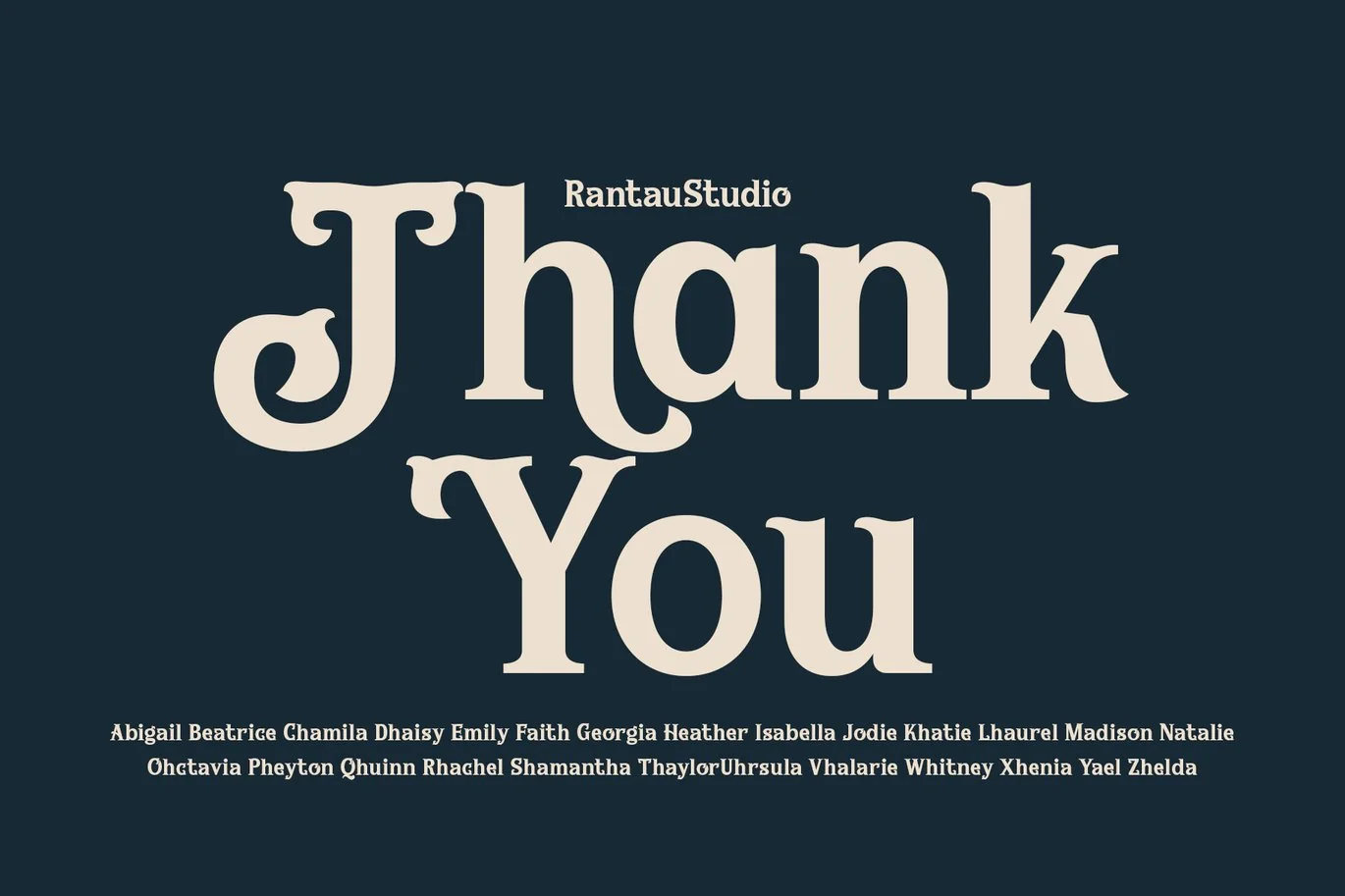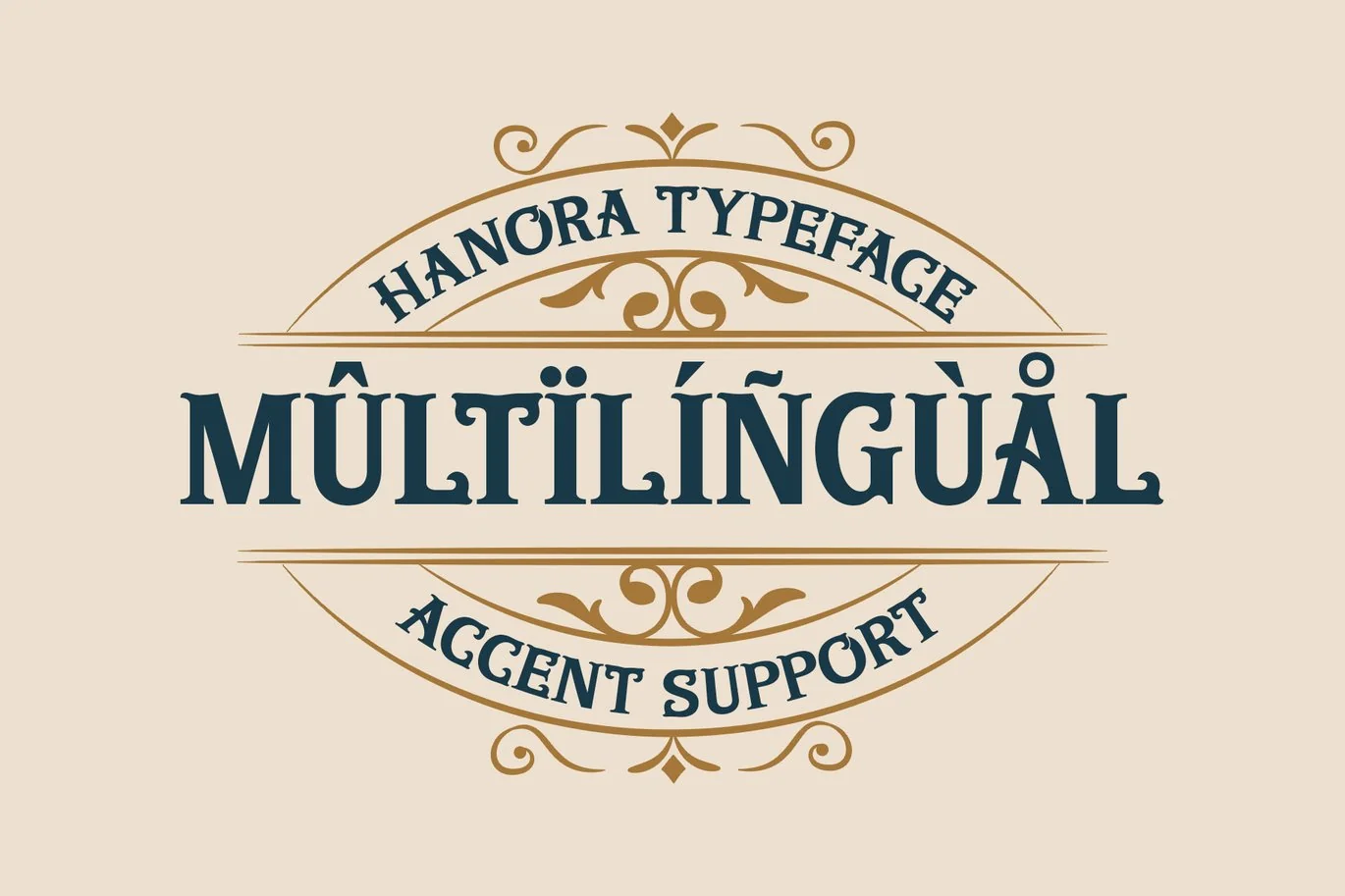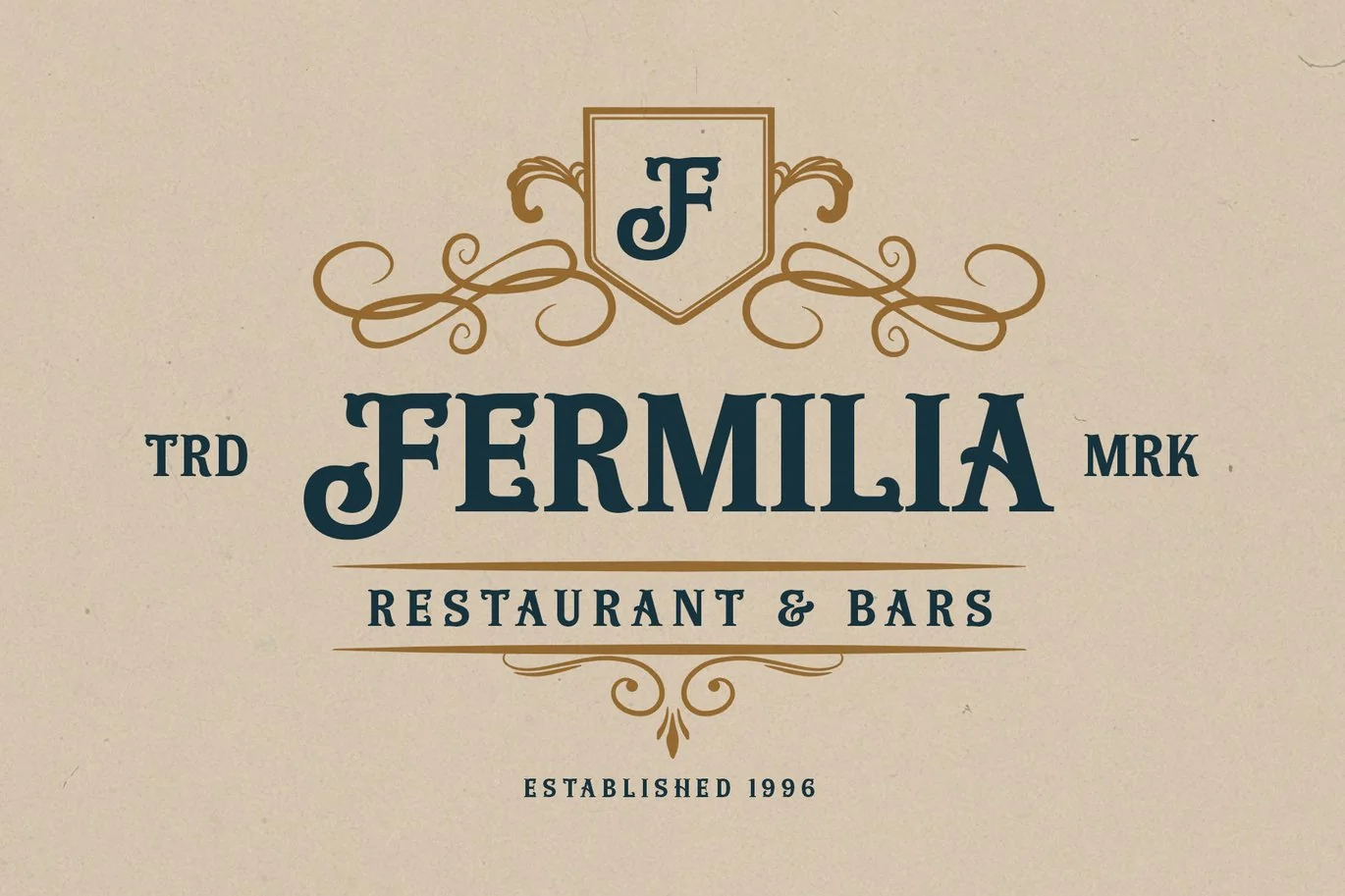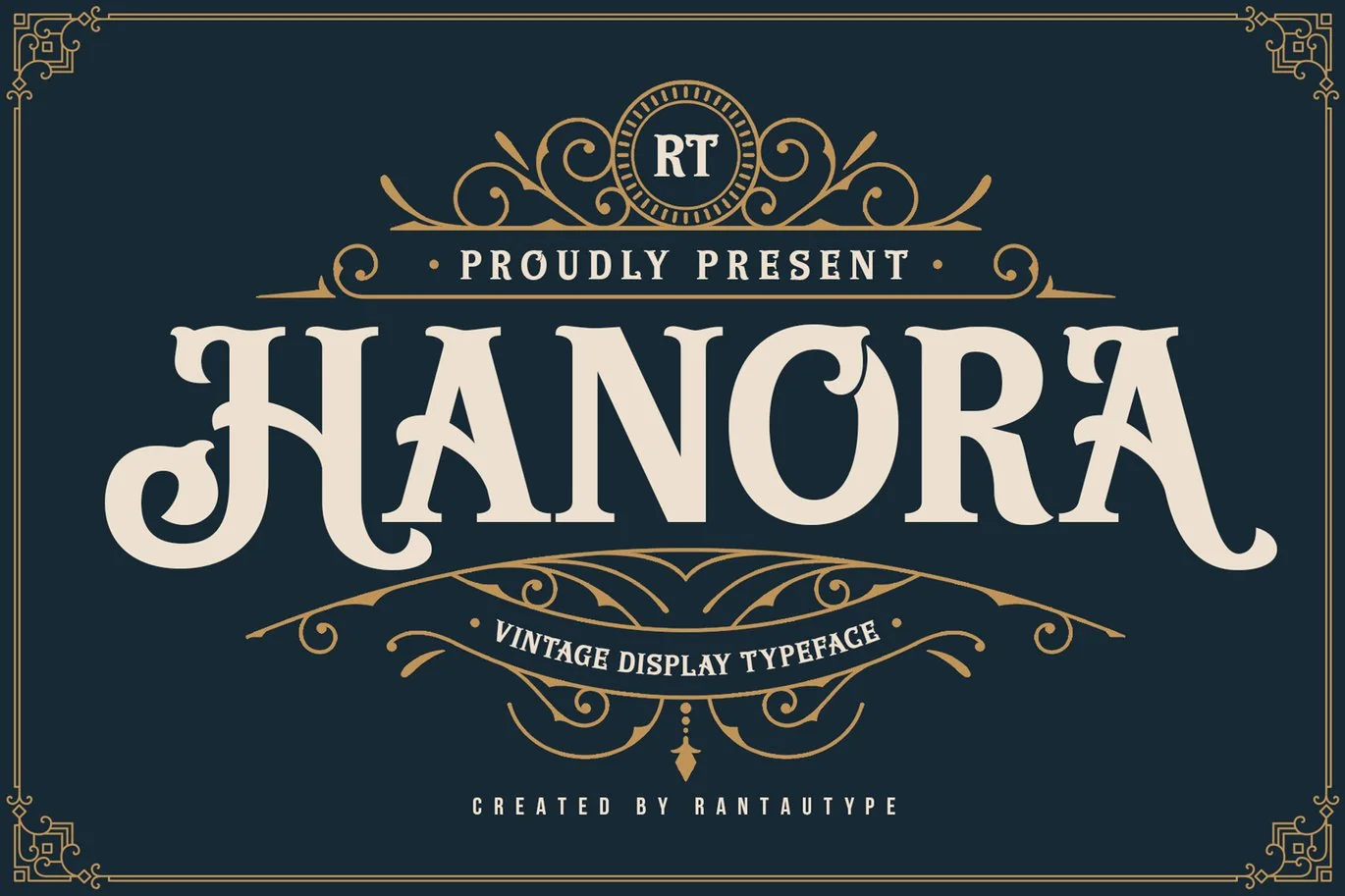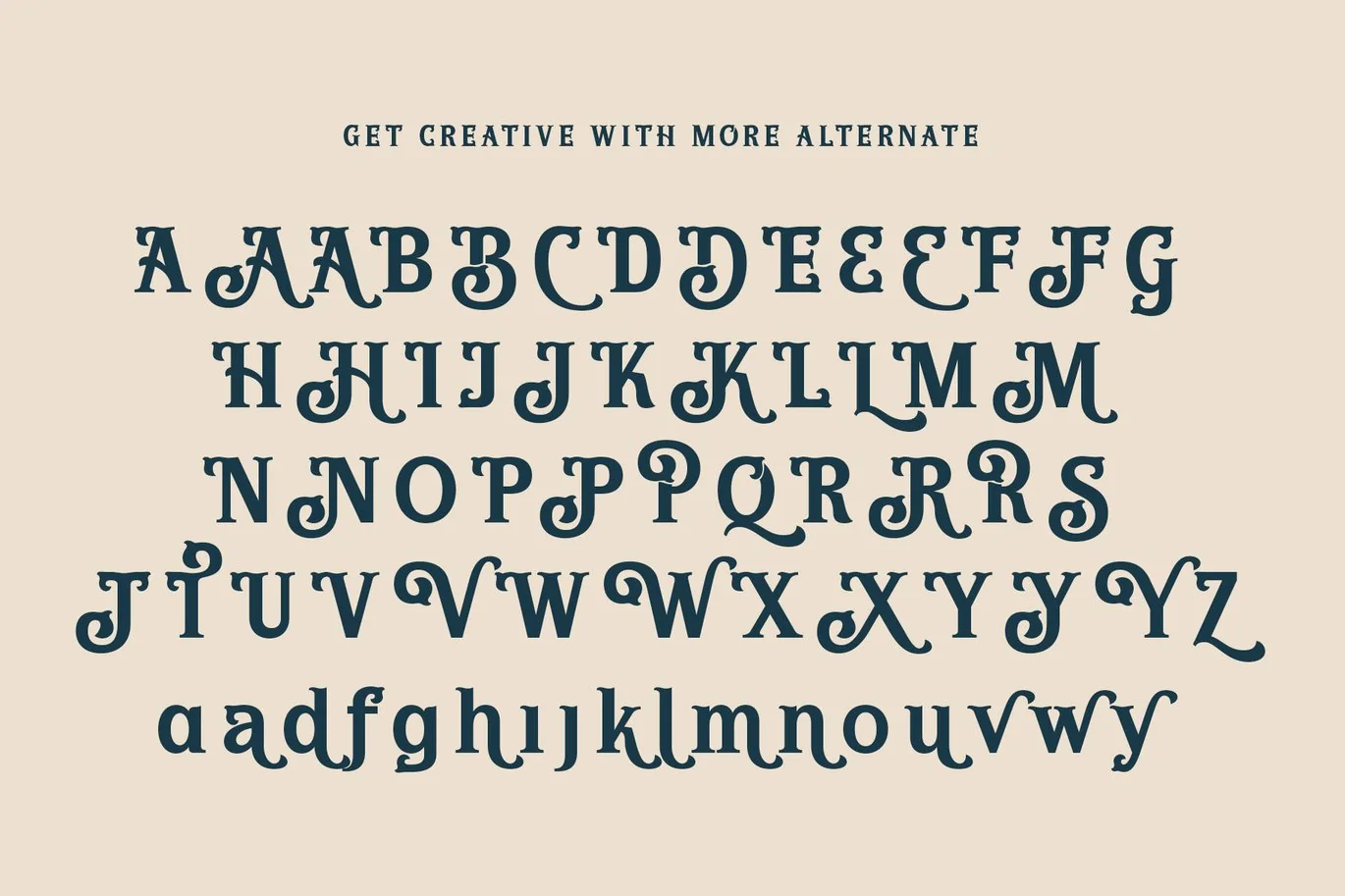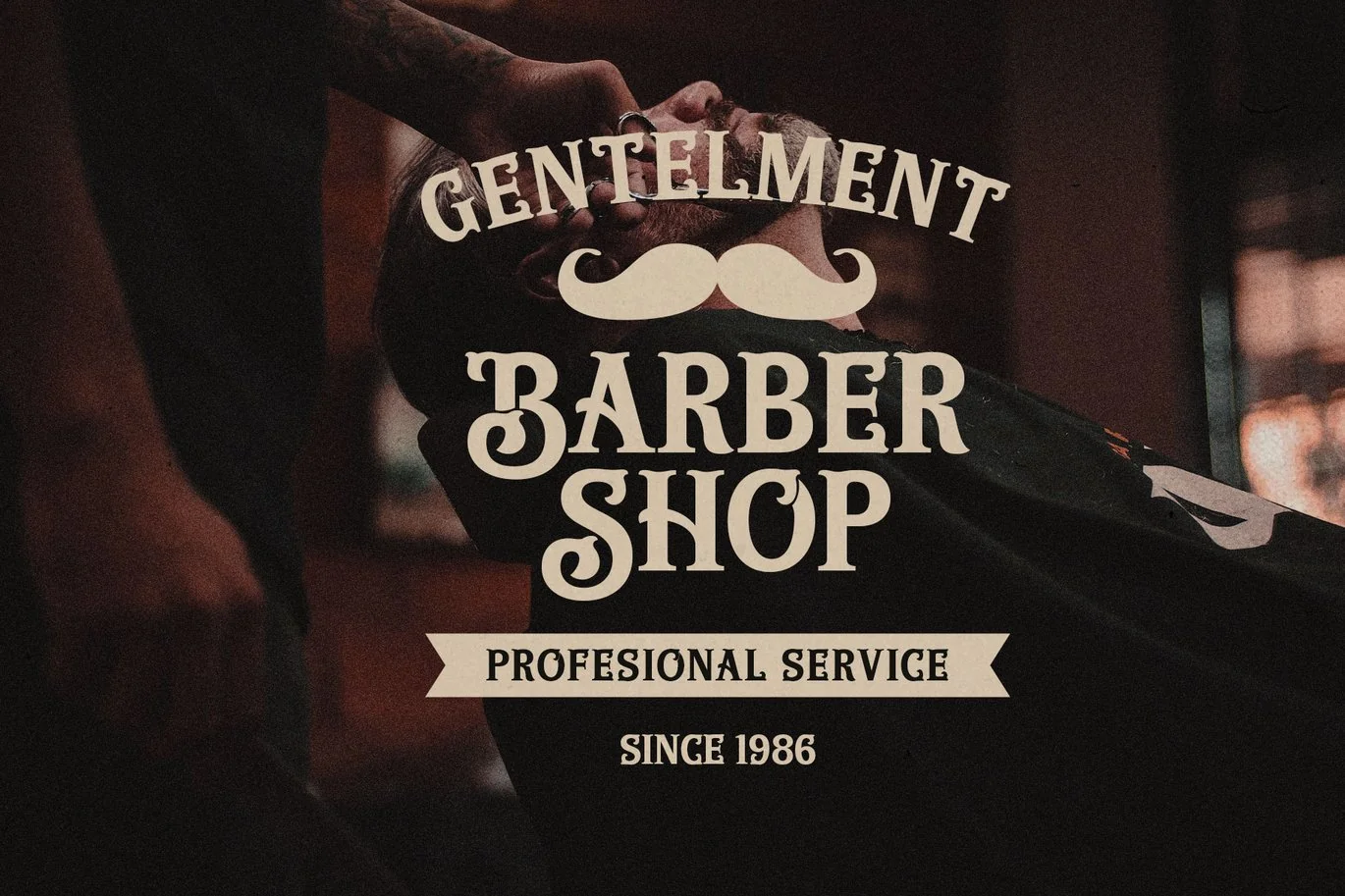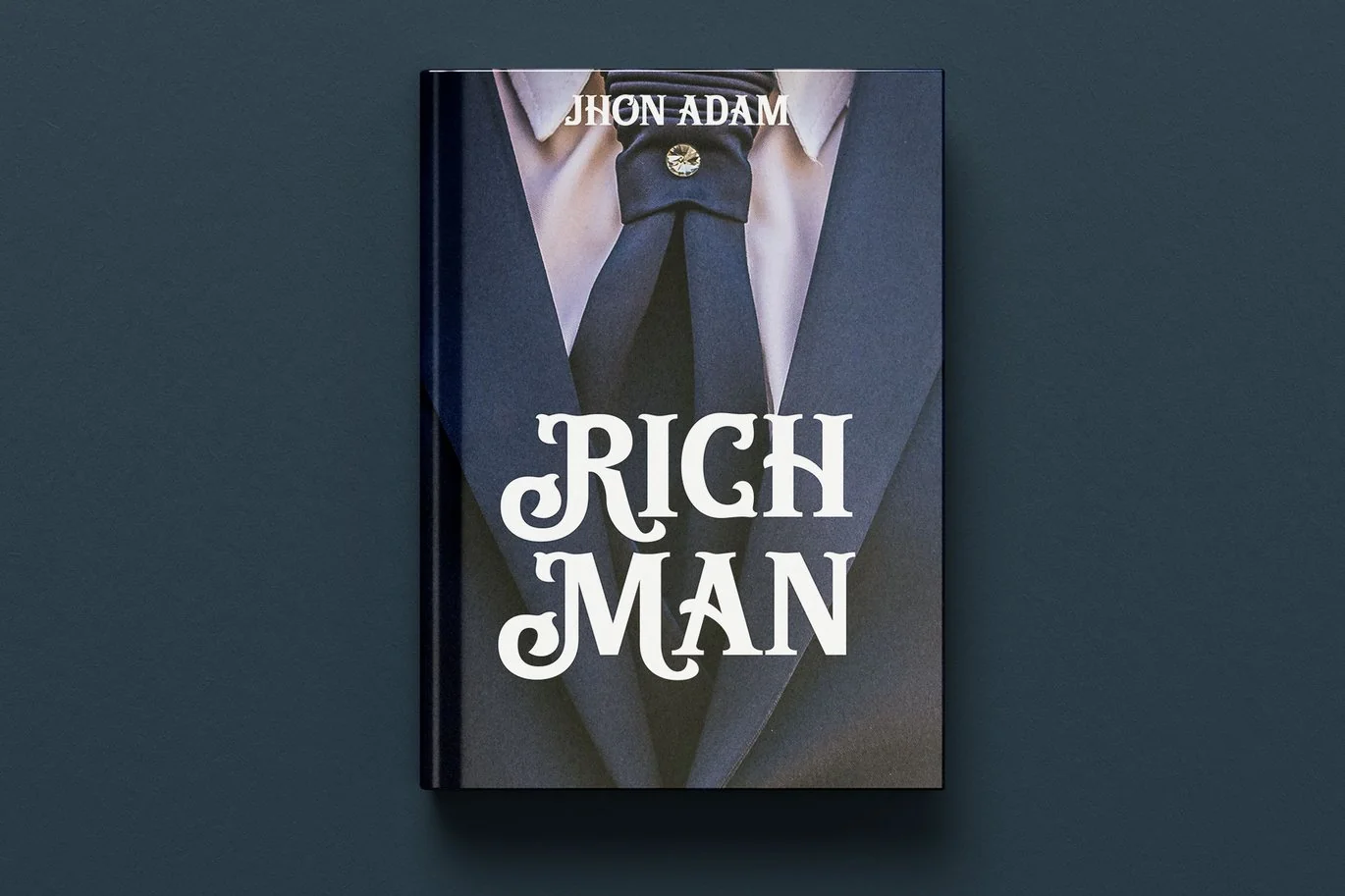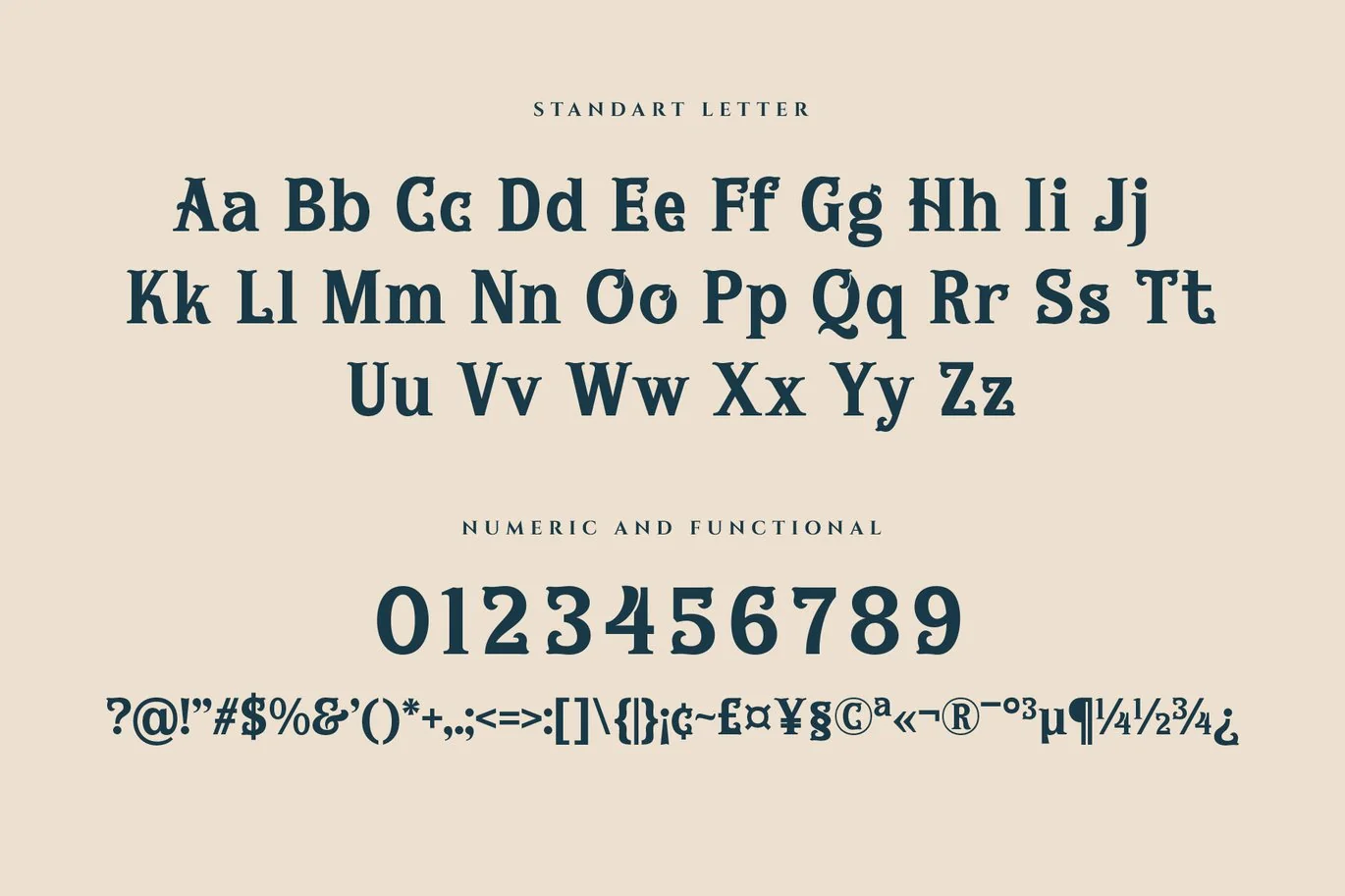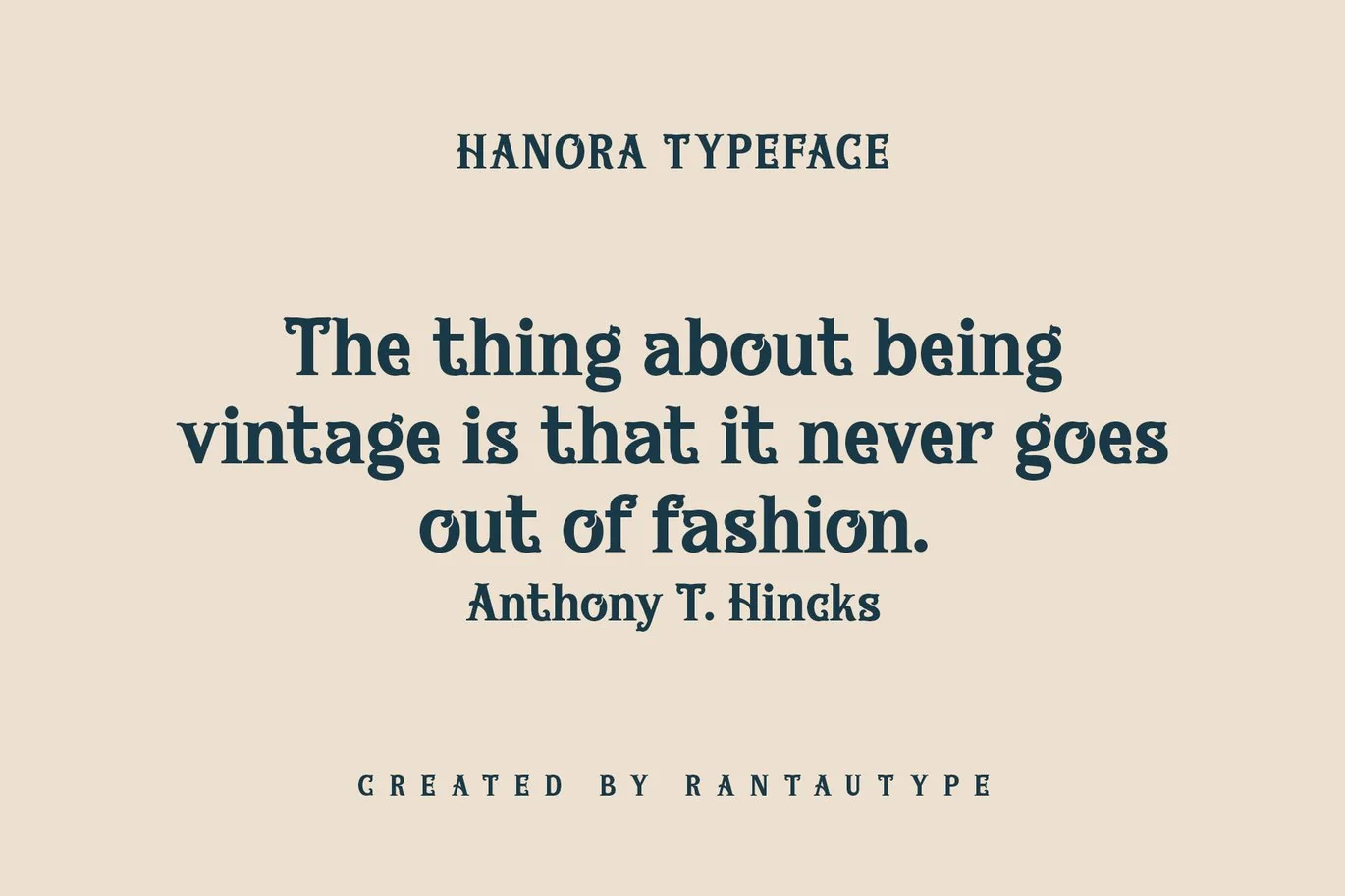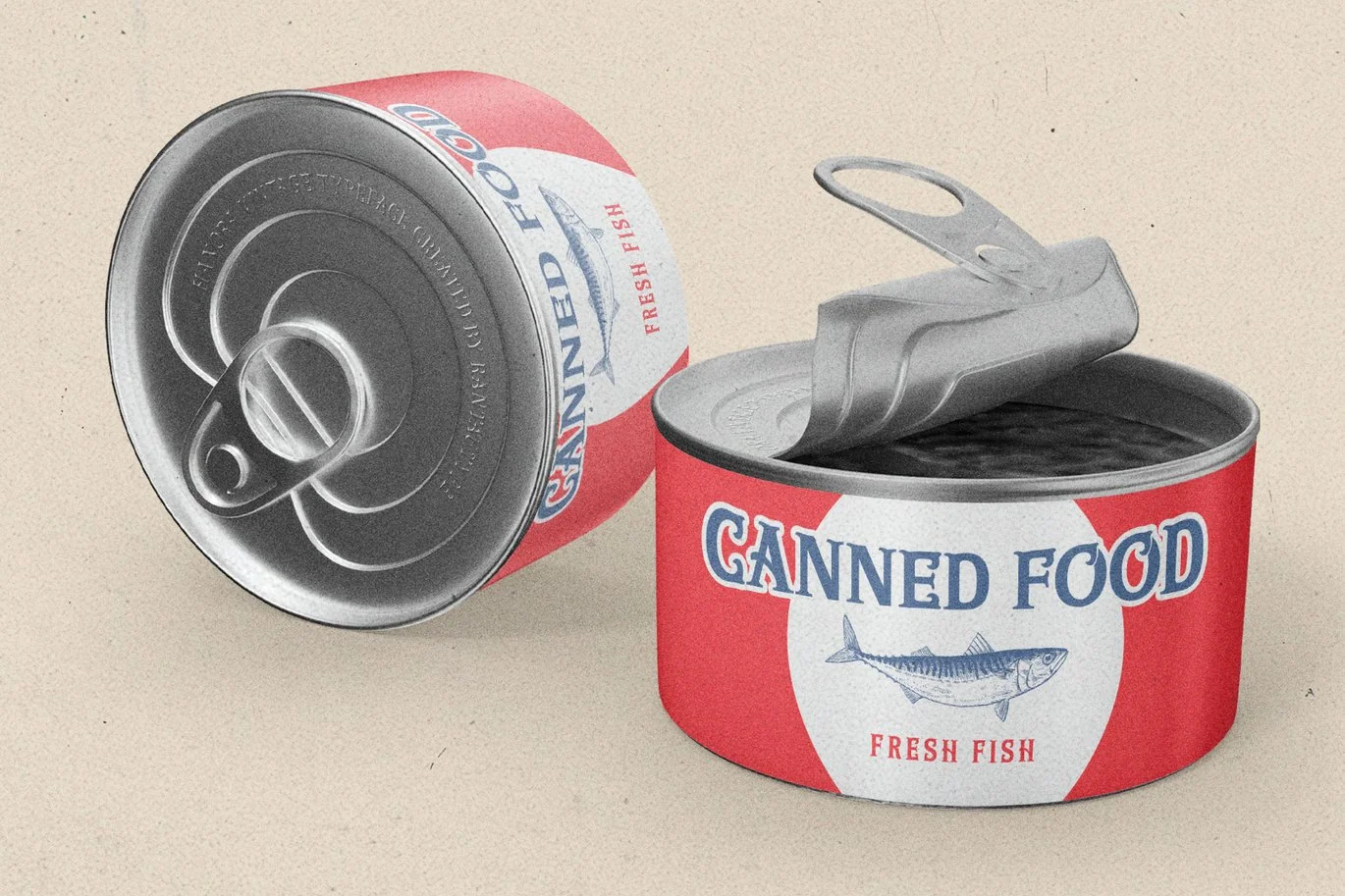
Hanora Vintage Font
Proudly present new vintage font called Hanora.
Hanora inspired from typography of vintage signage. Hanora is a masterful blend of boldness and sophistication. The detail make back to more past. We keep this font looks nostalgic, classy, boldness, readable, journey, catchy and easy to use. Hanora come with ligature, alternate and multilingual accent support.
Hanora is a beautiful choice for any creative endeavor, ideal for branding that craves a touch of vintage authenticity suck us lifestyle design such as logos, title, watermark on photography, cover, branding, display and magazine, wedding event, quotes, album cover, business card, corporate, business project and many other design project. Hanora here to make your work to high level!!!
- Standar character A-Z and a-z
- Ligature and alternate
- Multilinggual accent support